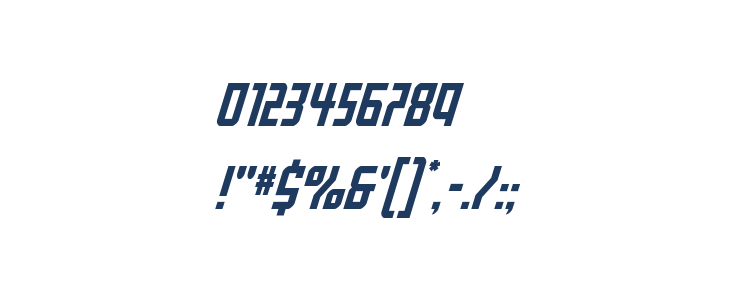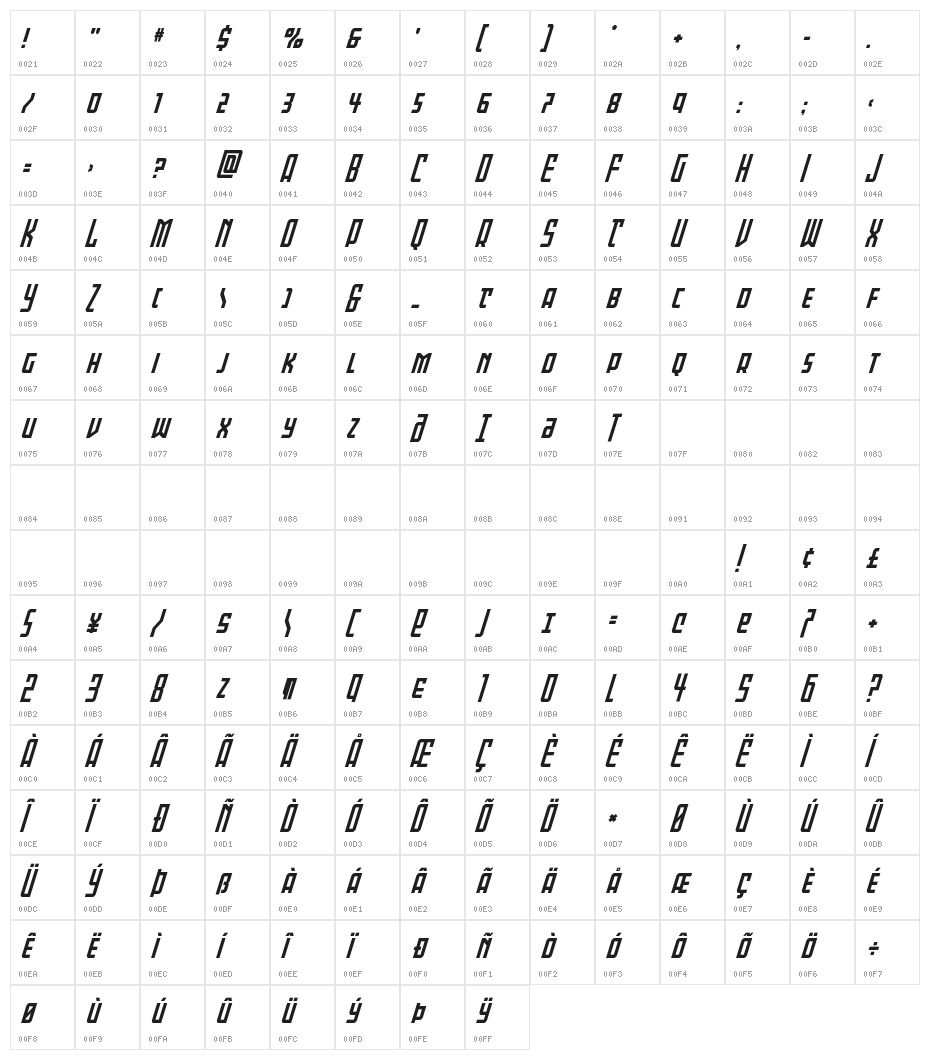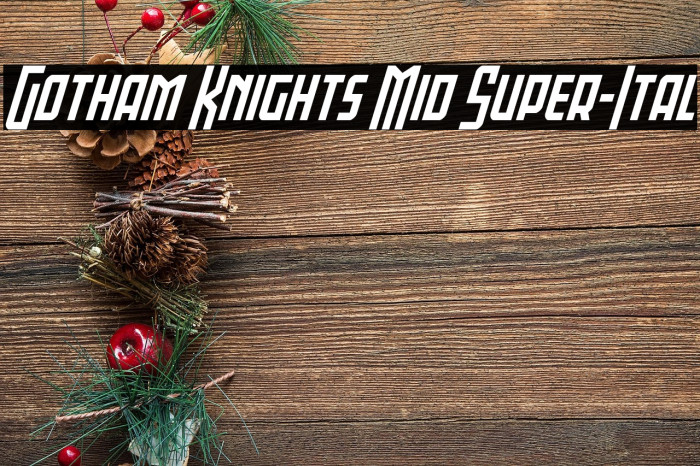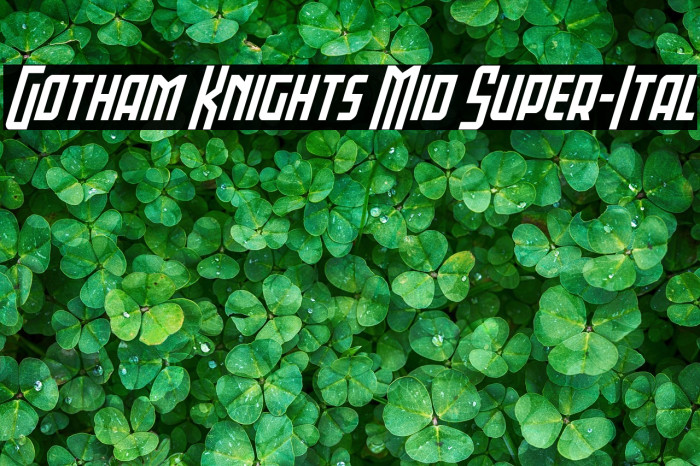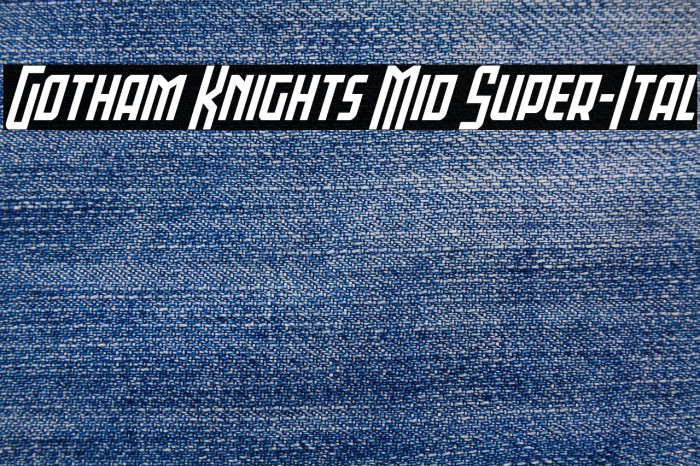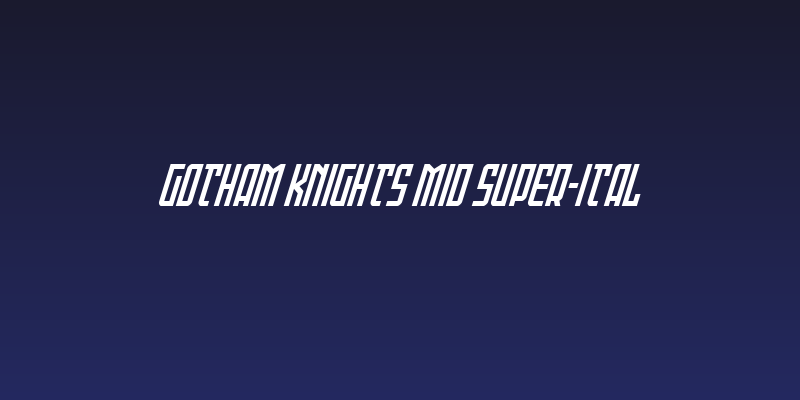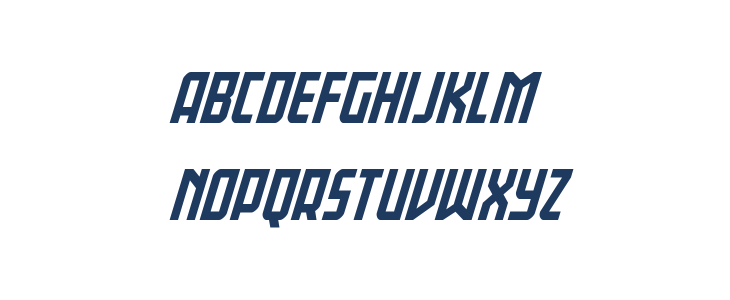
Gotham Knights Mid Super-Ital Font
Gotham Knights Mid Super-Ital Description
This font features a bold, angular design with a strong emphasis on geometric shapes and sharp edges. The letters are slanted, giving a dynamic and forward-moving appearance, which is enhanced by the italic styling. The uppercase and lowercase letters maintain a consistent style, with a futuristic and sporty feel. The numbers and special characters follow the same angular and italicized design, ensuring uniformity across all characters. This font is ideal for projects that require a modern and energetic look, such as sports branding, video game titles, or dynamic posters.
| Proposed Projects | Ideal for sports branding, video game titles, dynamic posters, and modern advertising. |